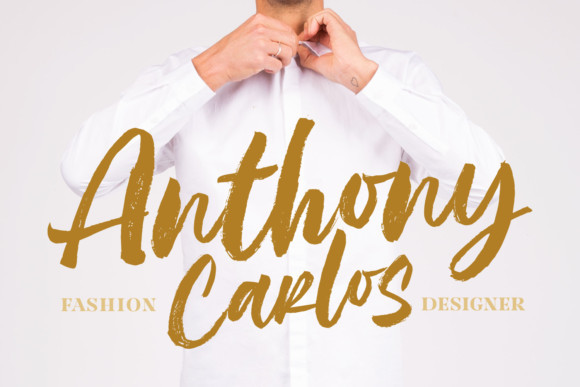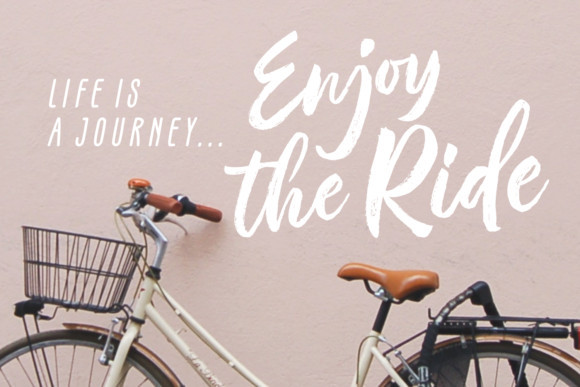
Rough Rough Brush Font
Rough Rough Brush Font – Give your designs an authentic brush handcrafted feel, that will inspire any design project with its incredibly romantic feel. Rough Rough Font Duo designed and shared by Situjuh. It’s a fun and bold handwritten font with a contemporary twist. It will turn any design project into a stand out! Great choice for logos, branding, crafting, t-shirt design, printing projects, book covers, albums, quotes, cards, etc. Comes with extra alternatives and ligatures to make your designs more catchy.